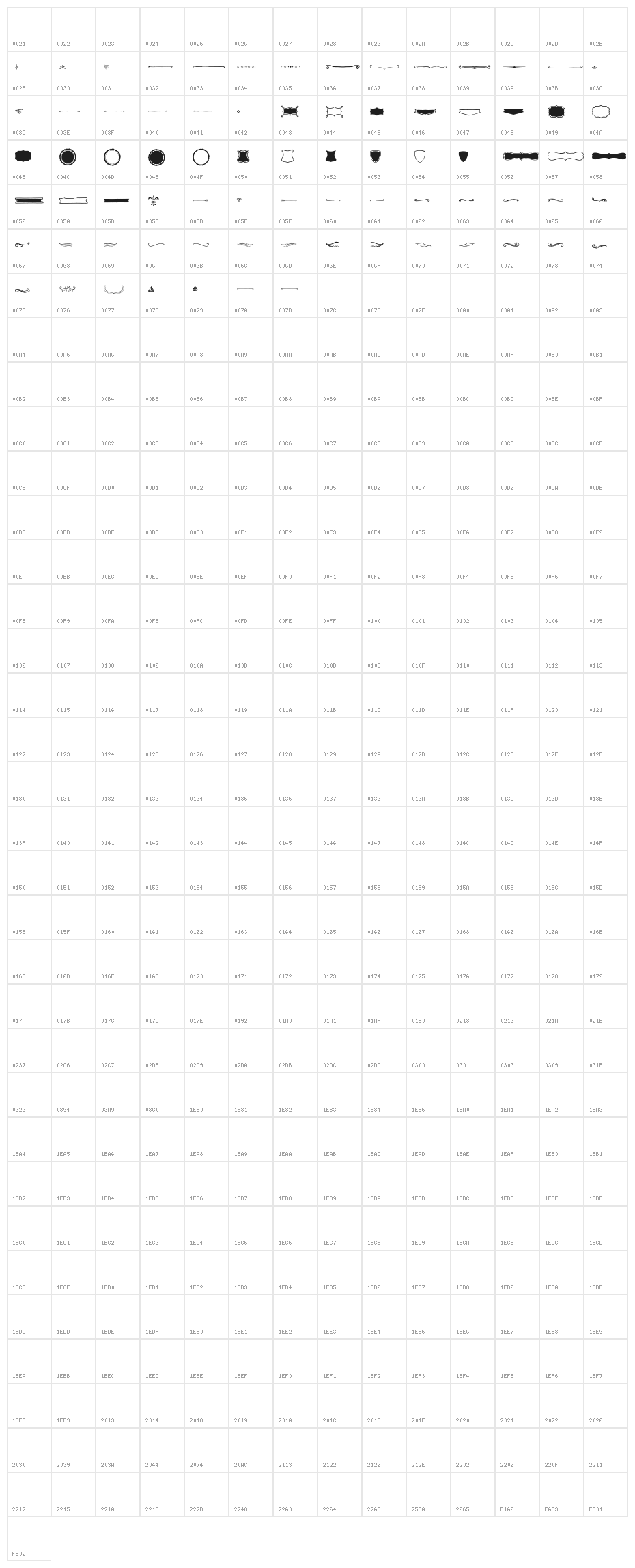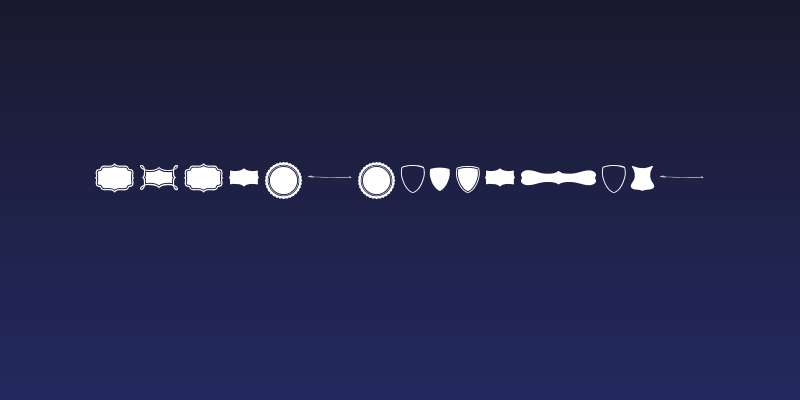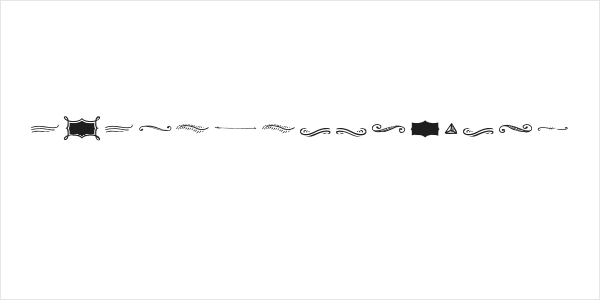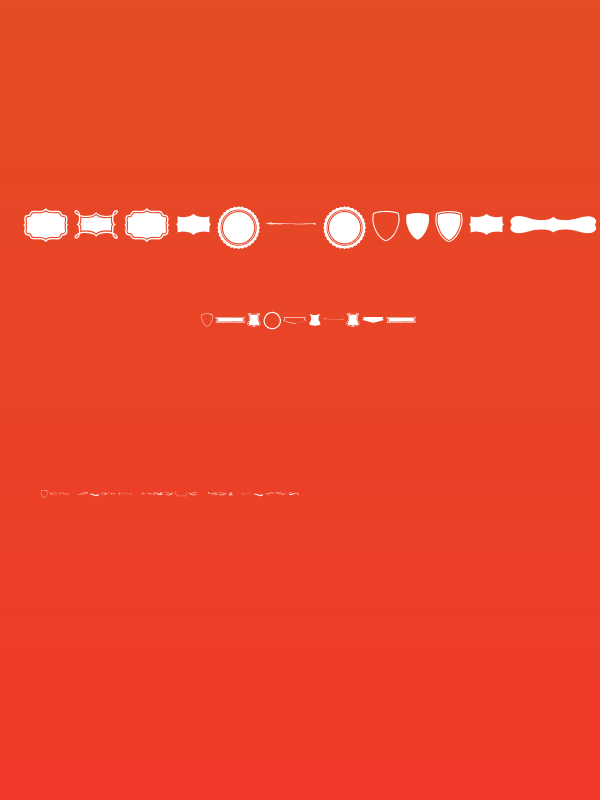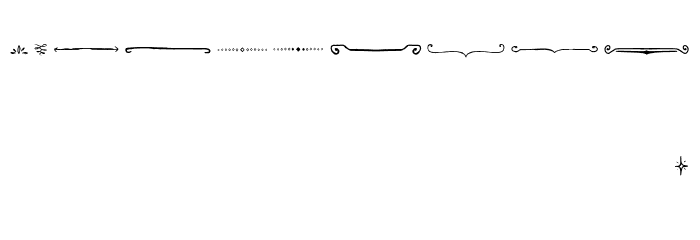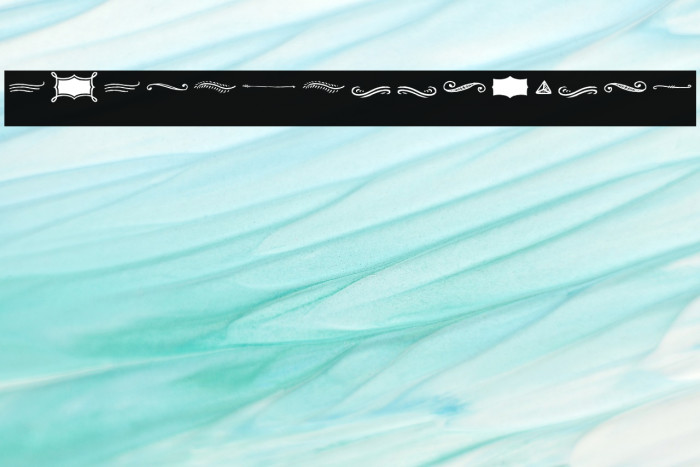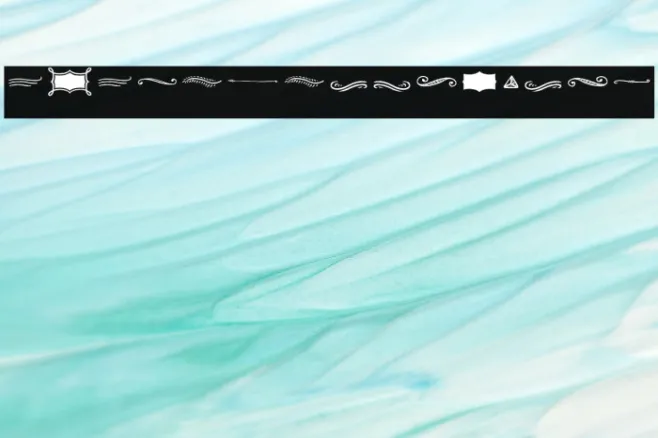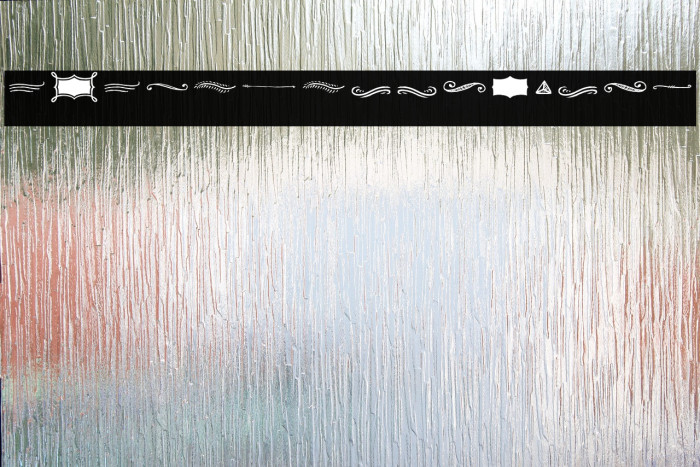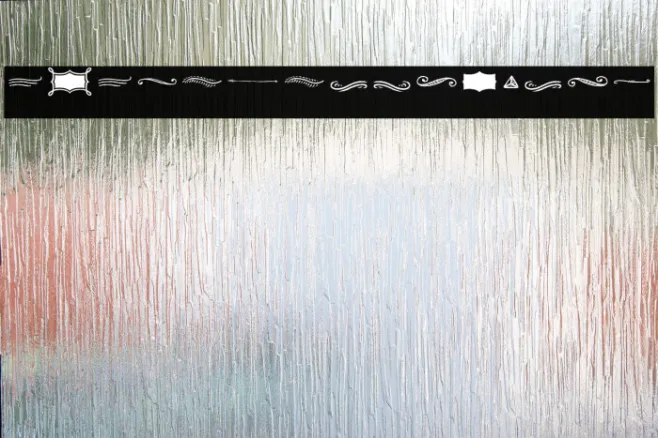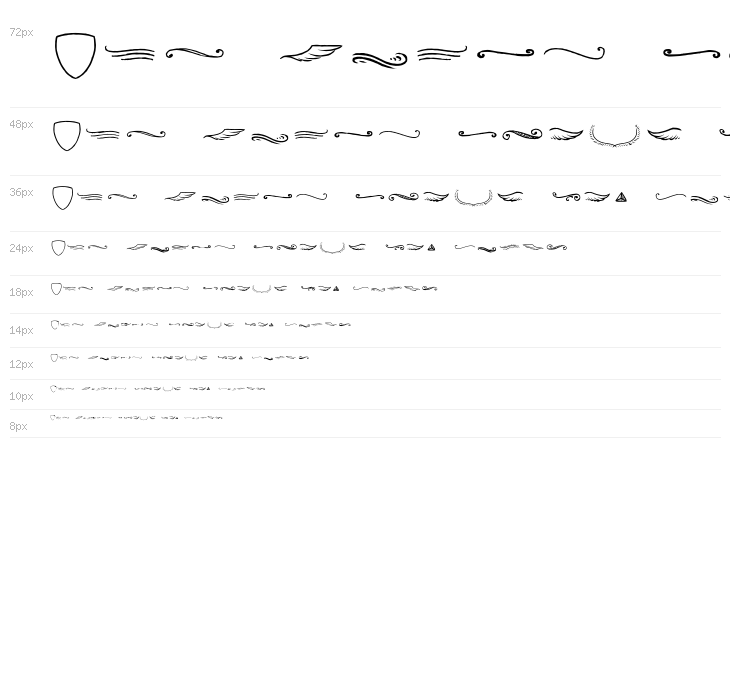
iCielAltusExtra Font
iCielAltusExtra Description
A decorative dingbat set featuring ornate frames, borders, flourishes, dividers, and embellishments. The glyphs include a variety of vintage-inspired shapes such as shields, banners, swirls, wings, and ornamental lines, all rendered in a hand-drawn, elegant style.
| Overall Style | Vintage, Decorative |
| Use Case | Ornaments, Borders, Frames, Dividers |
| Proposed Projects | Wedding invitations, certificates, vintage posters, branding, packaging, scrapbooking, decorative dividers in editorial layouts. |